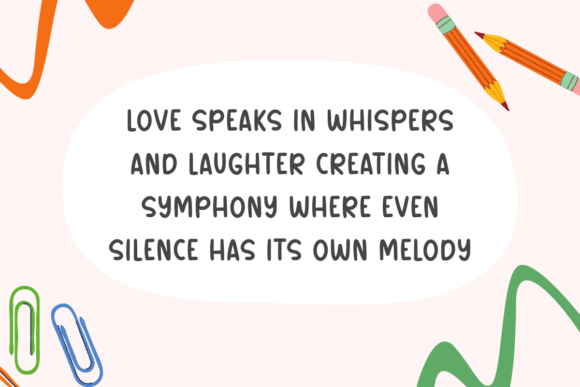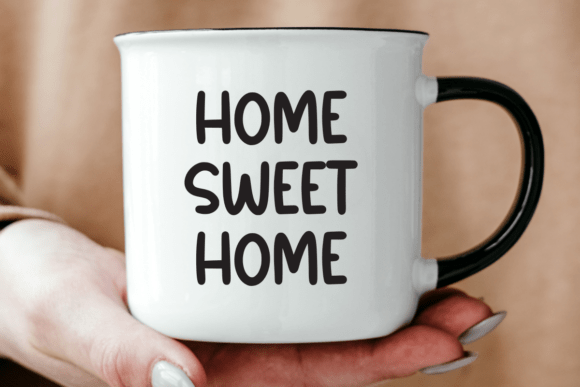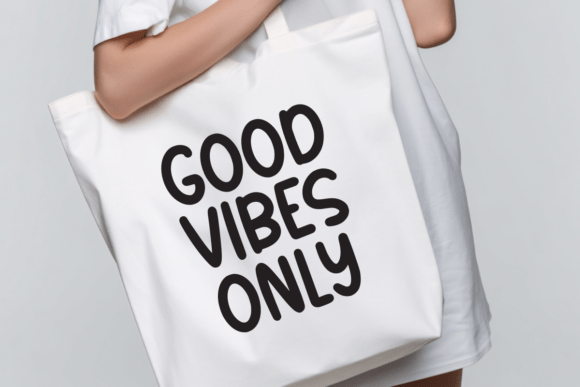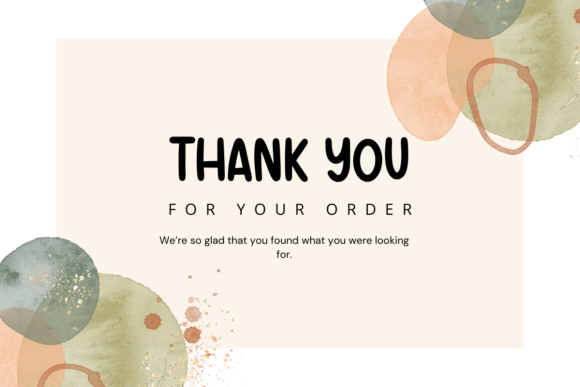
Discover the Art of Simplicity with Bookmark Font
Have you ever found yourself lost in a sea of colorful pens and scattered paper, searching for the perfect font to bring your creative vision to life? We’ve all been there – pouring over fonts, trying to find that elusive combination of style and elegance. For designers and crafters, the search for the perfect font can be a daunting task, but what if we told you that the answer lies in the subtle charm of natural handwriting?
Enter Bookmark Font, an elegantly minimalist sans serif font that captures the essence of handwritten notes. This versatile font is perfect for planners, journal pages, stickers, labels, and inspiring quotes, adding a touch of understated sophistication to any craft. With Bookmark Font, you can transform ordinary crafts into extraordinary artistic expressions, making it a valuable addition to any designer’s toolkit.
Bookmark Font Key Features
- Font Family: Bookmark Font is a custom-designed font family, making it unique and versatile for various design applications.
- Font Sizes: Bookmark Font is designed to be scalable, with sizes ranging from 8pt to 72pt, making it suitable for a wide range of applications, from small text to large headings.
- Resolution: Optimized for high-resolution displays, Bookmark Font is suitable for use on screens with resolutions up to 300 DPI, ensuring crisp and clear text rendering.
- Unique Characteristics: The font features a distinctive, modern design with a mix of geometric and organic elements, giving it a unique aesthetic appeal.
- Character Set: Includes a comprehensive character set, including Latin, Cyrillic, and Greek alphabets, as well as a range of punctuation marks and symbols.
Designer Review: Bookmark Font
Overall, I think Bookmark Font has some great qualities, but it also has some limitations that prevent it from being a top-tier font choice.
- Fun, modern design: Bookmark Font has a unique, playful style that can add a lot of personality to a project.
- Good legibility: Despite its decorative nature, Bookmark Font is still easy to read, even at smaller sizes.
- Great for creative projects: Bookmark Font is perfect for projects that need a bit of whimsy, like children’s books, zines, or social media graphics.
- Limited versatility: While Bookmark Font is great for creative projects, it may not be the best choice for more formal or professional applications.
- No language support: Bookmark Font only includes Latin-based languages, which may limit its use for projects that require multiple languages.
- Not ideal for small text: While Bookmark Font is legible, it may not be the best choice for small text sizes, as the details can get lost.
Overall, I think Bookmark Font is a fun and creative font that can add a lot of personality to a project. However, its limitations may make it less suitable for more formal or professional applications.
The Bookmark Font is ideal for:
- Designing book covers and promotional materials.
- Creating invitations and event materials.
- Developing branding and marketing materials.
Tips for Getting the Most Out of Bookmark Font
To get the most out of Bookmark Font, try:
- Pairing it with other elegant fonts for a sophisticated look.
- Using it in combination with bold or italic styles for emphasis.
- Experimenting with different font sizes and colors to
Alternatives to Bookmark Font for Designers
Great Vibes is a modern, elegant script font that’s perfect for adding a touch of sophistication to your designs. It’s great for titles, headings, and any text that needs a bit of flair.
Compared to Bookmark Font, Great Vibes has a more refined and polished look, making it ideal for high-end designs and luxury brands.
Pacifico is a beautiful, cursive script font that’s perfect for creating a relaxed, beachy vibe in your designs. It’s great for titles, headings, and any text that needs a bit of whimsy.
Compared to Bookmark Font, Pacifico has a more laid-back and casual look, making it ideal for designs that need a fun and carefree feel.
What is the recommended font size for using Bookmark Font?
The recommended font size for Bookmark Font is between 12pt and 18pt, depending on the design context. For body text, we recommend using 14pt or 16pt for optimal readability. For headings and titles, you can use larger font sizes, such as 24pt or 30pt. Remember to adjust the line height and spacing to ensure clear and comfortable reading.